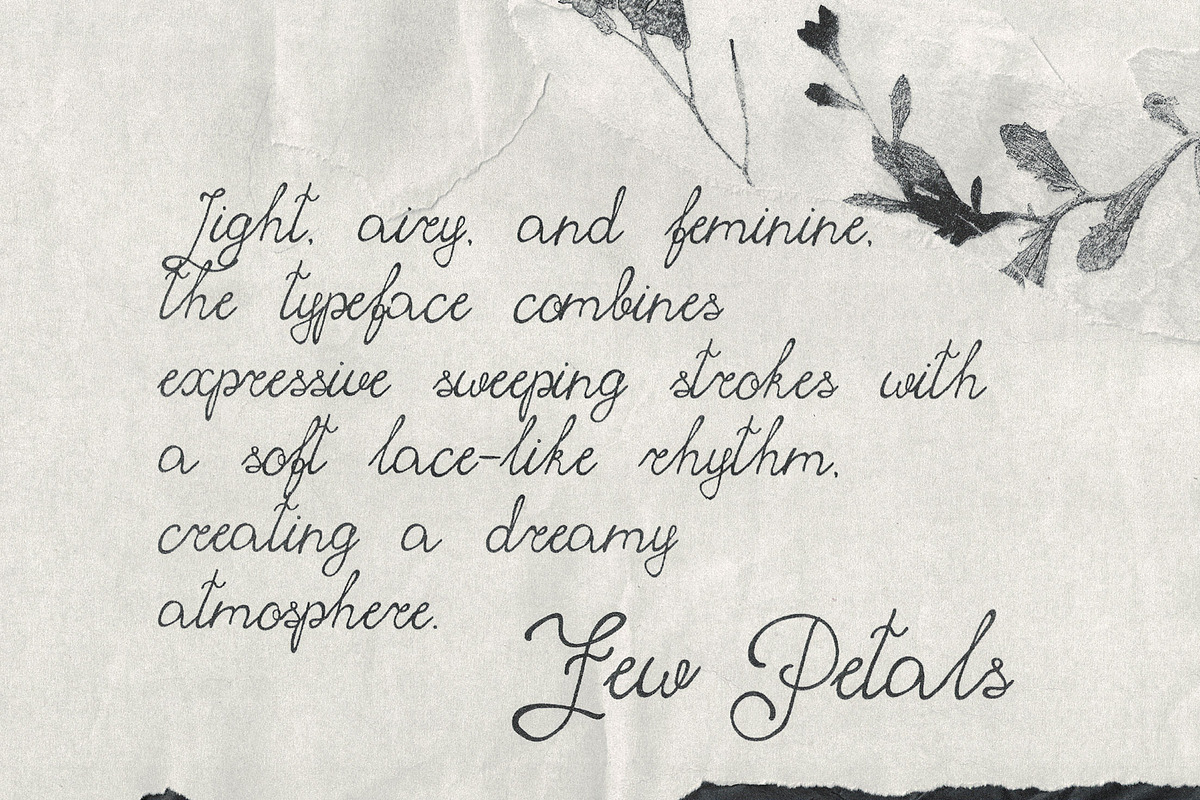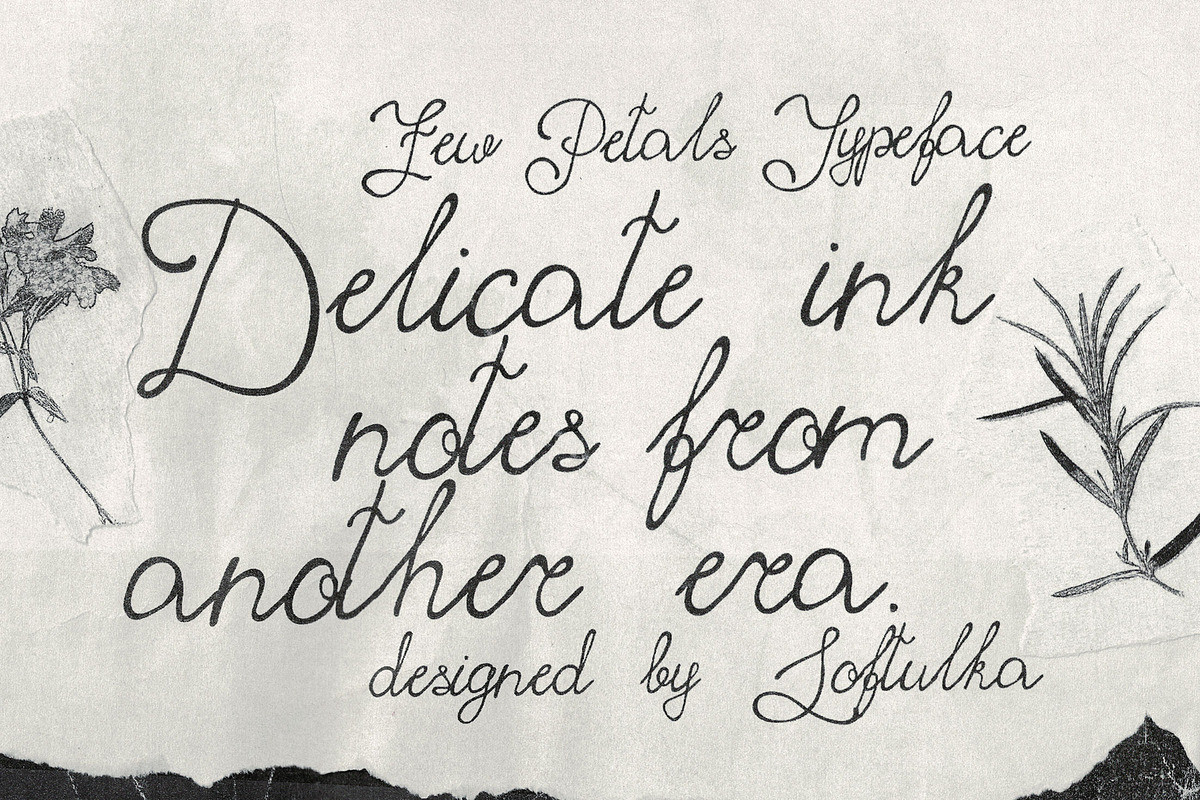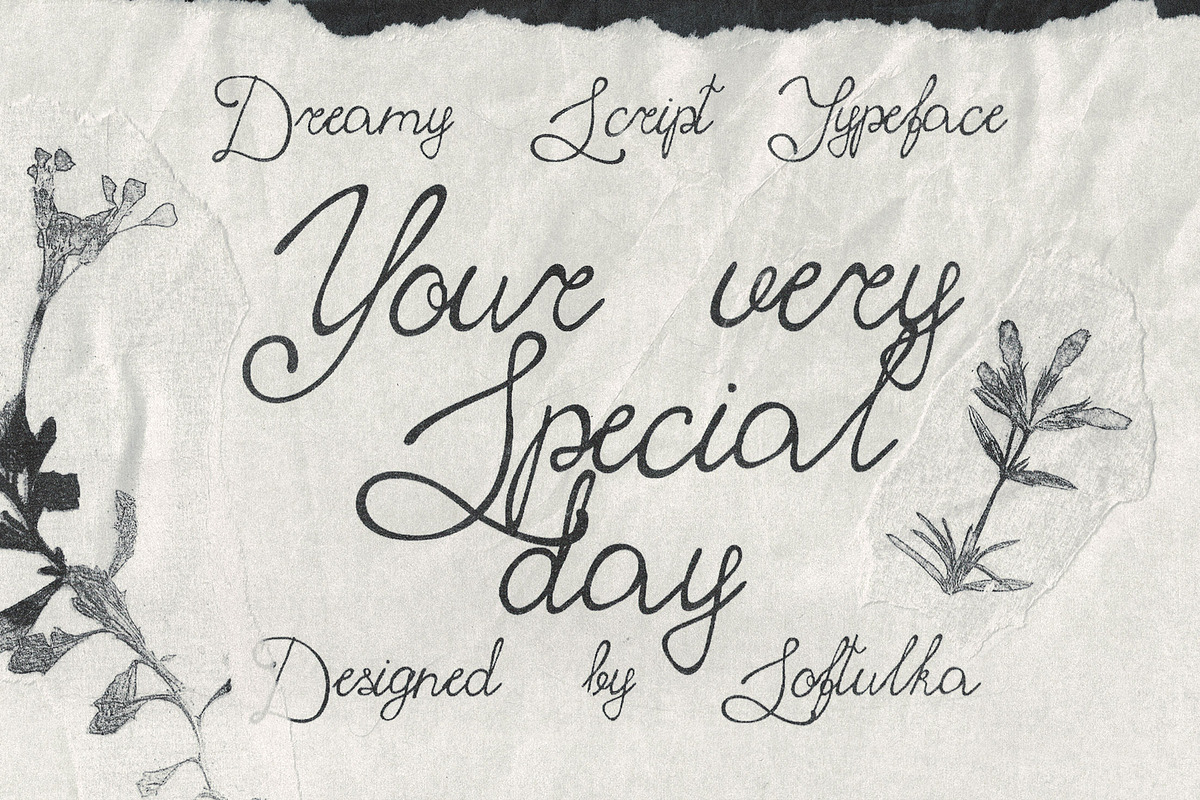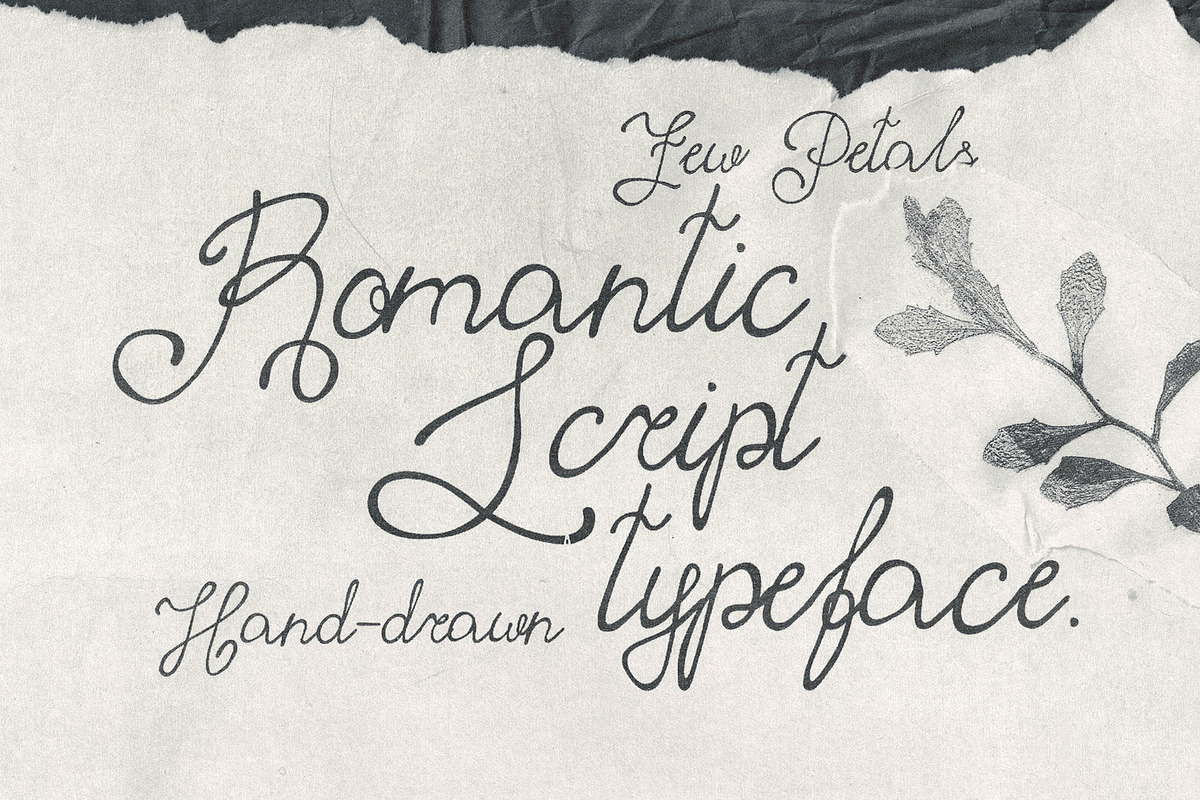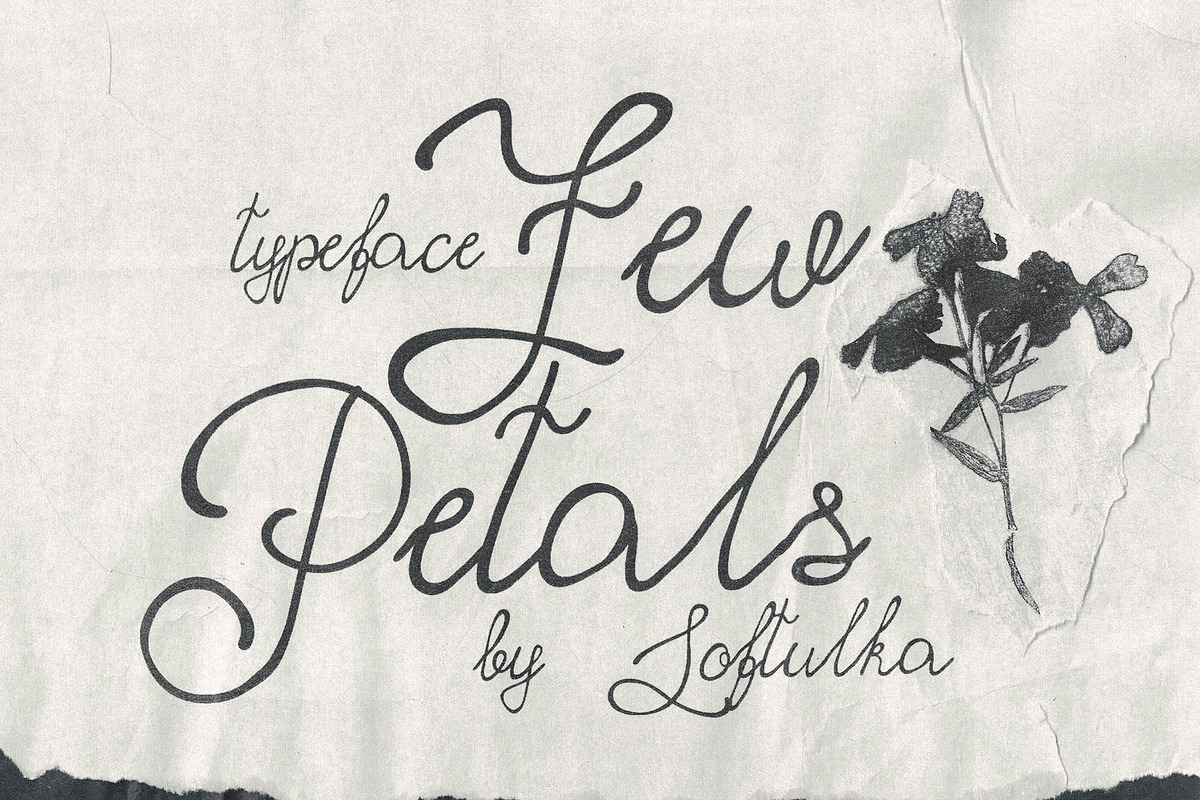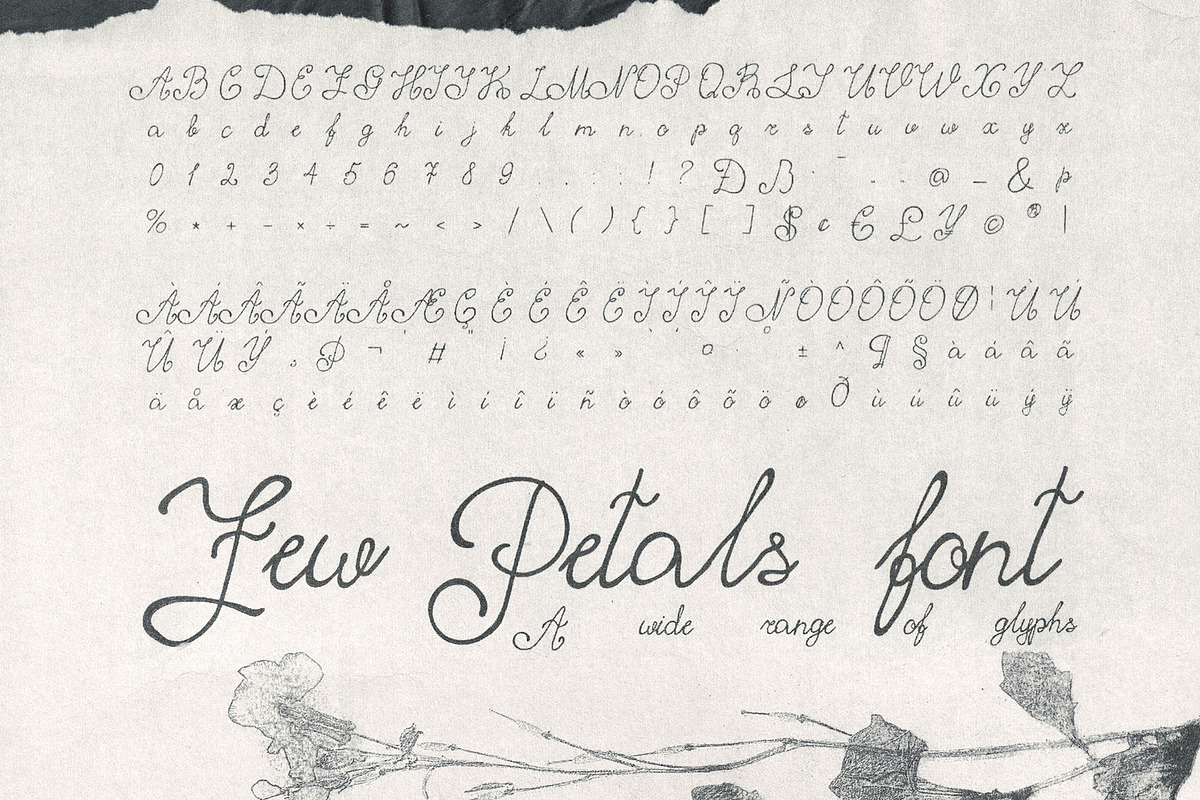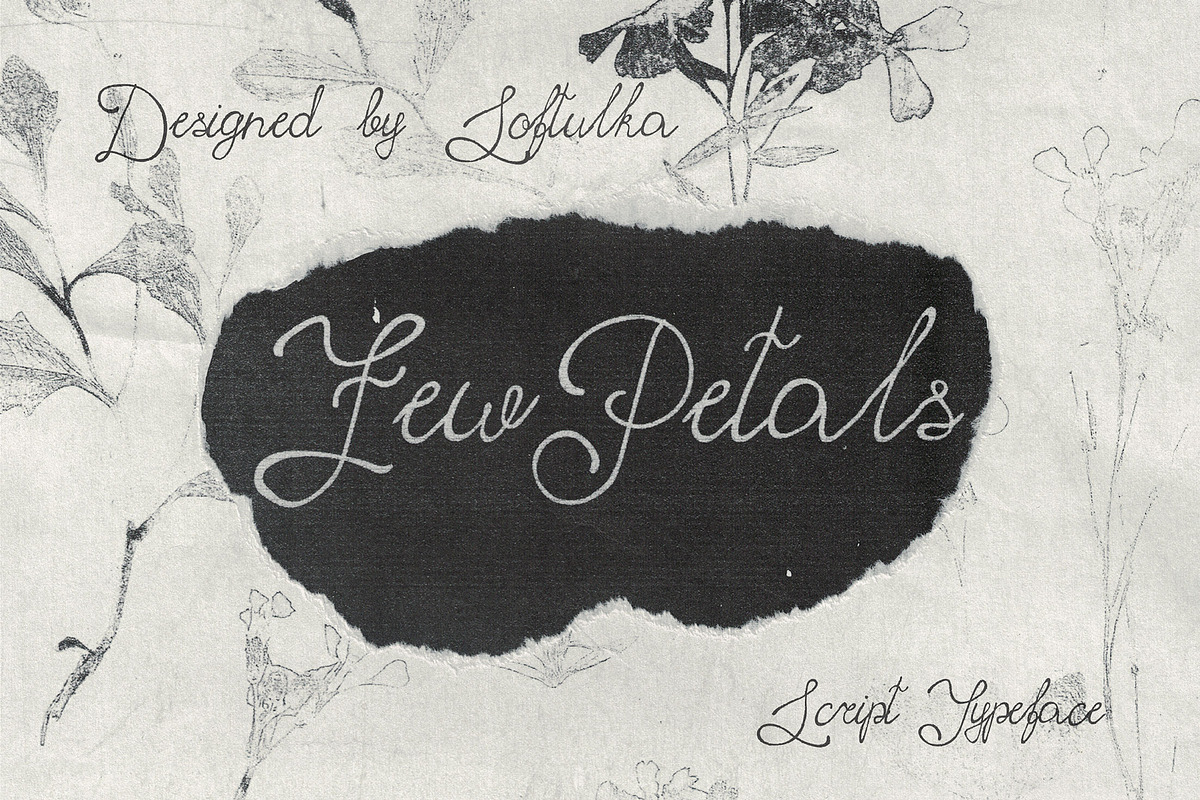
Few Petals. Dreamy Script Typeface
Few Petals is a flowing handwritten script inspired by old poetic letters, vintage journals, and delicate ink notes from another era. Light, airy, and feminine, the typeface combines expressive sweeping strokes with a soft lace-like rhythm, creating a dreamy and slightly mysterious atmosphere for branding, editorials, invitations, packaging, and romantic visual storytelling.